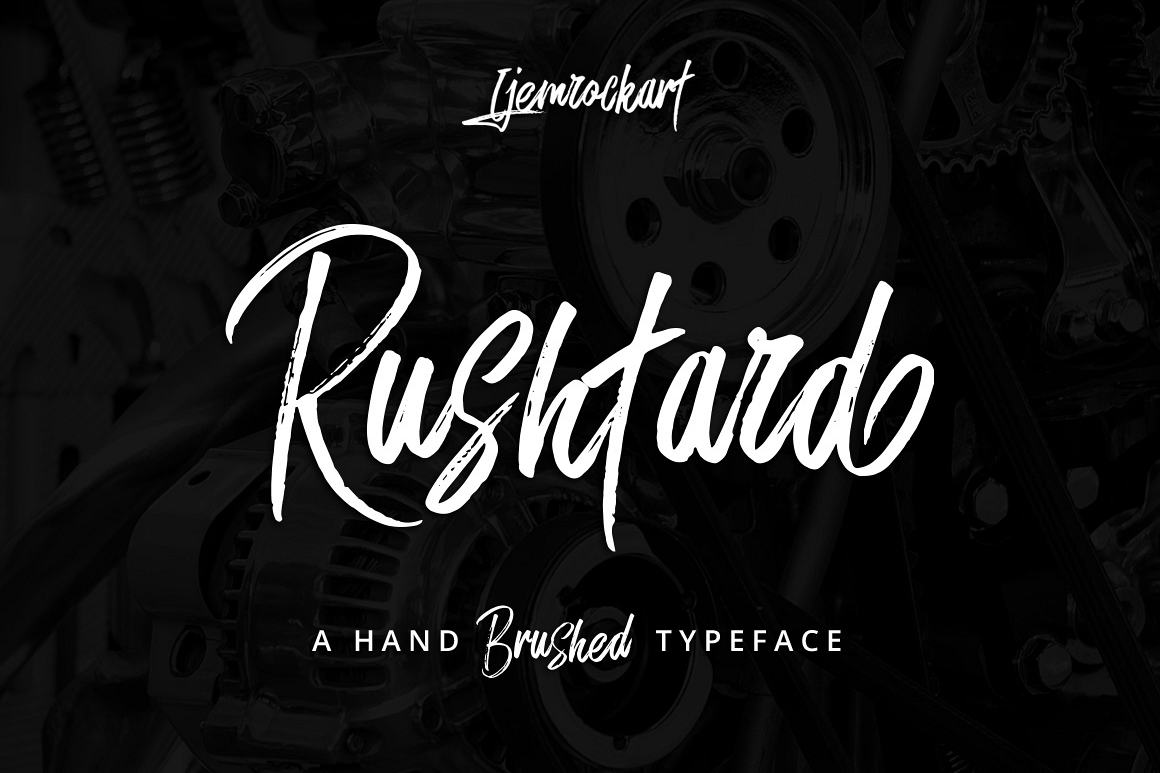
Rushtard Brush
Normal Price $18Rushtard Brush is handmade signature style font with stunning characters. Ideal for logos, name tag, handwritten quotes, product packaging, merchandise, social media & greeting cards. It contains a full set of lower & uppercase letters, a large range of punctuation, numerals, and multilingual support.The font also contains several alternatives for lowercase characters, accessible in the Adobe Illustrator Glyphs panel, or under Stylistic Alternates in the Adobe Photoshop OpenType menu. But If you don't have any opentype specific software, you can still use Collatin as is with its standard lowercase and uppercase letters.